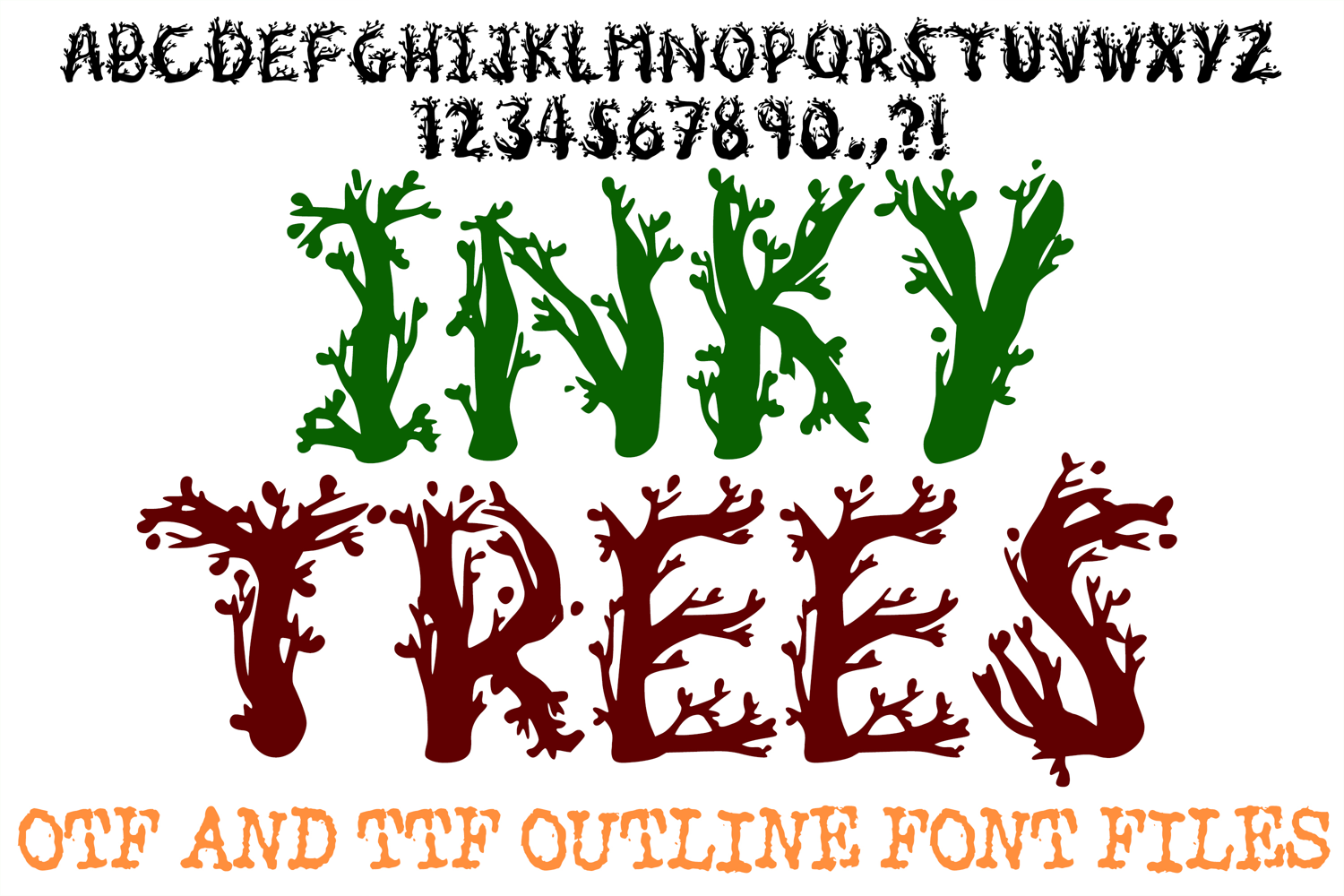
Inky Trees ABC Font Typeface Woodland Forest Twig Alphabet
Bring organic texture and artistic flair to your work with Inky Trees, an installable display font featuring branching tree trunks, budding twigs, and delicate ink-splatter details. Combining raw woodland silhouettes with an expressive hand-painted look, this typeface brings an earthy, creative aesthetic to your text.
Ideal For:
Nature & Woodland Crafts: Cabin signage, trail maps, botanical prints, and rustic wedding invitations.
Apparel & Merch: Camping t-shirts, nature hoodies, tote bags, and outdoor accessories.
Artistic & Seasonal Design: Ink-illustration graphics, autumn banners, book covers, and eco branding.
Vinyl & Cutting Projects: Craft machine projects, custom decals, laser-cut signs, and stencils.